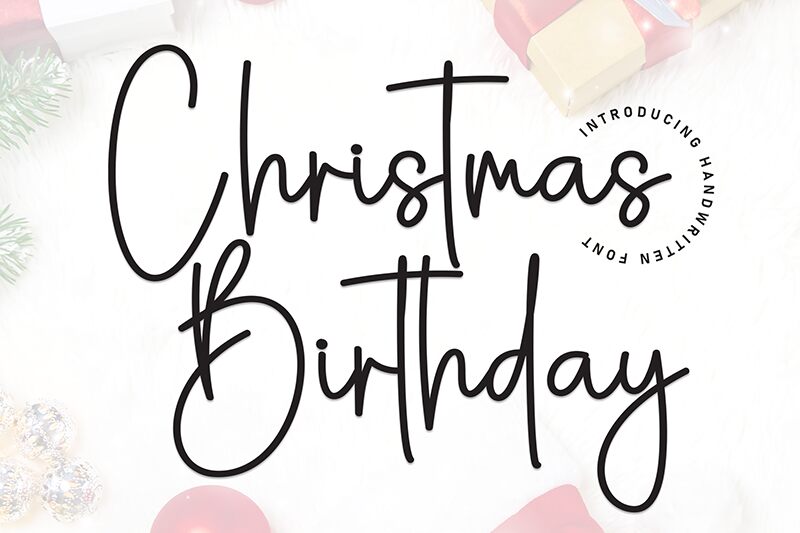
Christmas Birthday
Christmas Birthday font is a light handwritten font by Scratchones with a casual elegance and amazing visual impact in both small and large sizes. It carries a lovely romantic vibe that makes it suitable for wedding projects, invitations, greeting cards, social media posts, branding designs, packaging labels and many other purposes.
The free script typeface is no less expressive when used on logos, invitation envelopes or even product tags. Give your projects an artistic flair and add to them a human element that’ll make readers relate much easier to your design concepts.